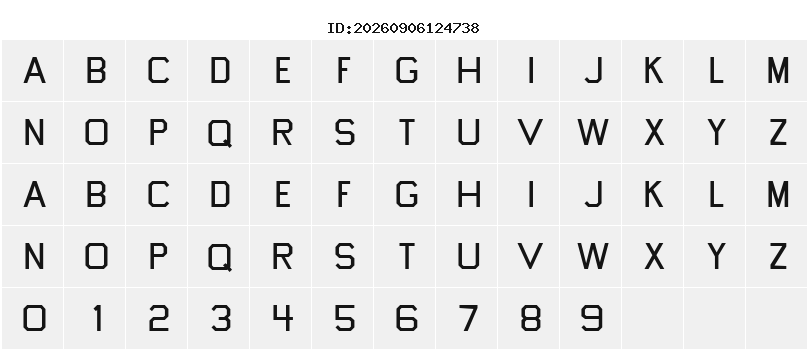
About Tapeworm.ttf
Tapeworm.ttf is a modern, elegant sans-serif font designed for ultimate readability and visual harmony. Perfect for branding, headlines, web design, and print materials.